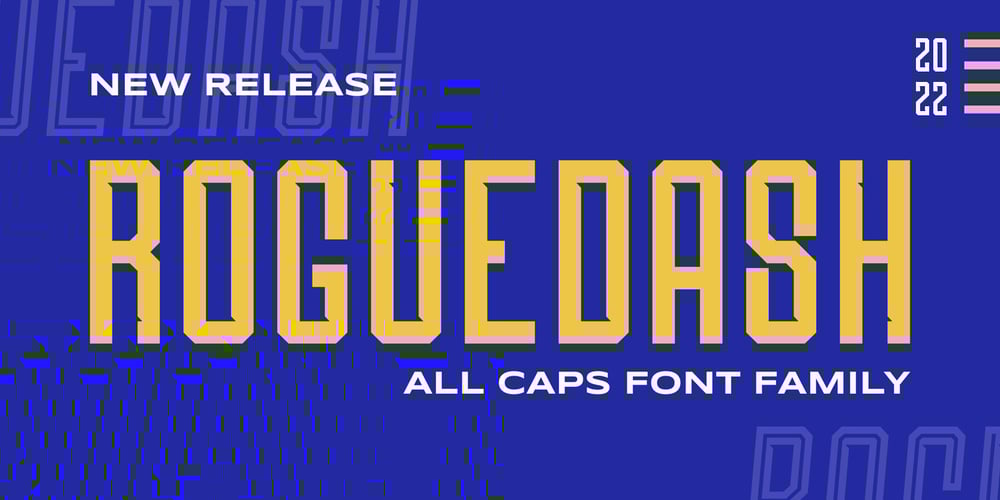
Roguedash
Roguedash font
Roguedash Font Family was designed by Virgiawan Listanto and published by Stringlabs Creative Studio. Roguedash contains 4 styles and family package options. Roguedash is a stylish sans serif font family. This font is perfect for anyone who like strong style. Also, this font has Sporty, trendy, Futuristic, Modern, Elegant, Creative, and Unique Concept.